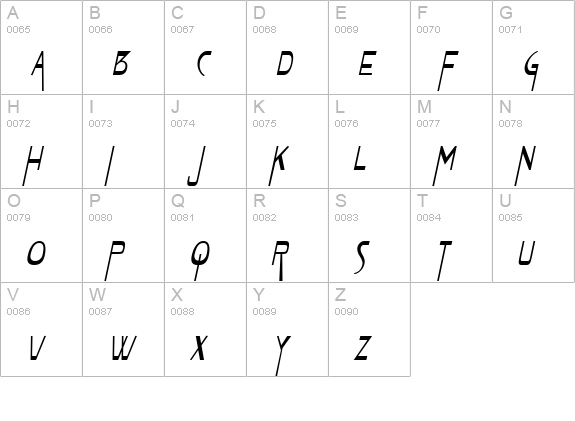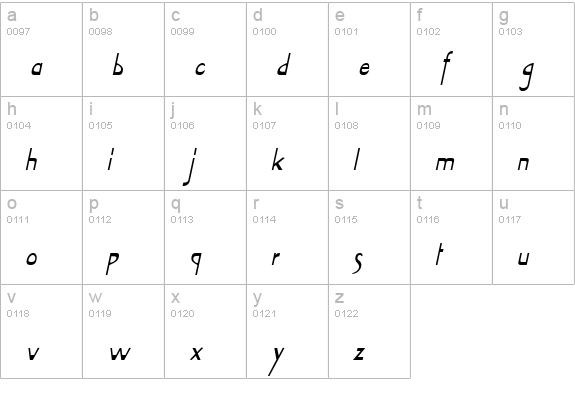
TabletCondensed Italic Font Details
TabletCondensed Italic is a distinctive, italic variant in the TabletCondensed typeface family \xE2\x80\x94 well suited to design and typography projects.
TabletCondensed Italic is a modern and sleek font that is sure to make a statement in any design project. Its condensed nature adds a touch of elegance and sophistication, while the italic style adds a unique twist. This font is perfect for adding emphasis and flair to headlines, titles, or any other text that needs to stand out. With its clean and crisp lines, TabletCondensed Italic exudes a sense of professionalism and accuracy. It is ideal for a wide range of applications, including corporate branding, advertising, and editorial design. This versatile font can easily adapt to various design styles, making it a valuable addition to any designer's toolkit. What's even better is that TabletCondensed Italic is available for free download at FontsMarket.com. This means that you can use this font in your personal or commercial projects without any restrictions. Whether you're a professional designer or a hobbyist, having access to high-quality fonts like TabletCondensed Italic can greatly enhance your creative work. So why wait? Go ahead and download TabletCondensed Italic today from FontsMarket.com and unlock the potential to create eye-catching and engaging designs. With its sleek and modern style, this font is sure to elevate your projects to new heights.